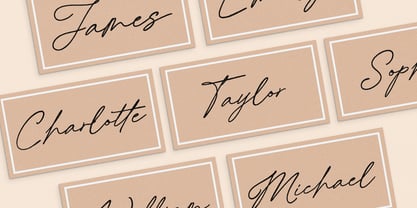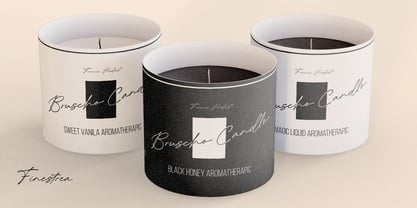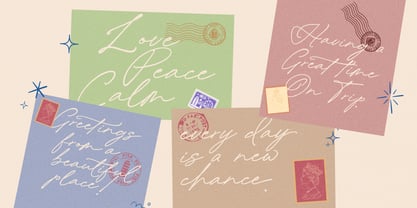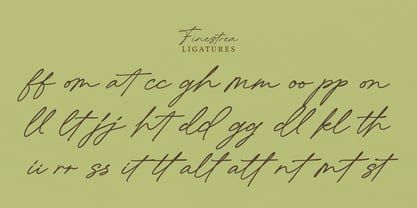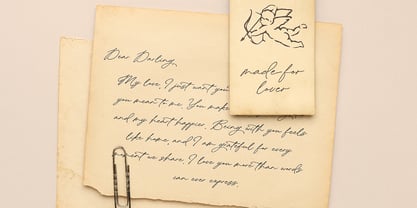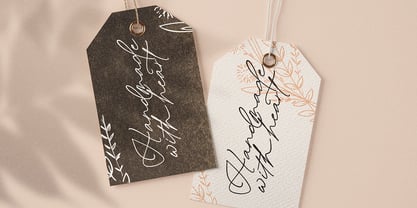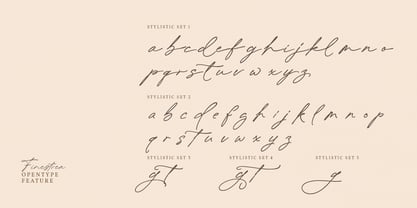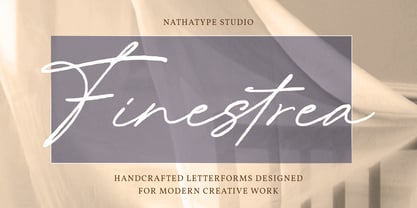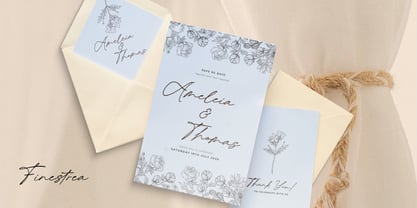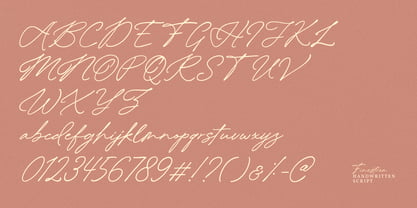
Finestrea
by Nathatype
The Finestrea Font Family was designed by Donis Miftahudin and published by Nathatype. Finestrea contains 1 styles. More about this family
Finestrea is a graceful handwritten font. Inspired by contemporary calligraphy trends, this elegant script font delivers a natural writing style that feels both personal and sophisticated. Finestrea is designed with smooth curves, delicate lines, and consistent connections between letters, creating a harmonious and refined look. Every stroke is carefully crafted to mimic the movement of a real pen, resulting in a font that brings authenticity and charm to any design. In addition, enjoy the features here. Features: Alternates Ligatures Multilingual Supports PUA Encoded Numerals and Punctuations Finestrea fits in logos, invitations, quotes, branding, posters, and many more designs. Find out more ways to use this font by taking a look at the font preview. Thanks for purchasing our fonts. Hopefully, you have a great time using our font. Feel free to contact us anytime for further information or when you have trouble with the font. Thanks a lot and happy designing.
Designers: Donis Miftahudin
Foundry: Nathatype